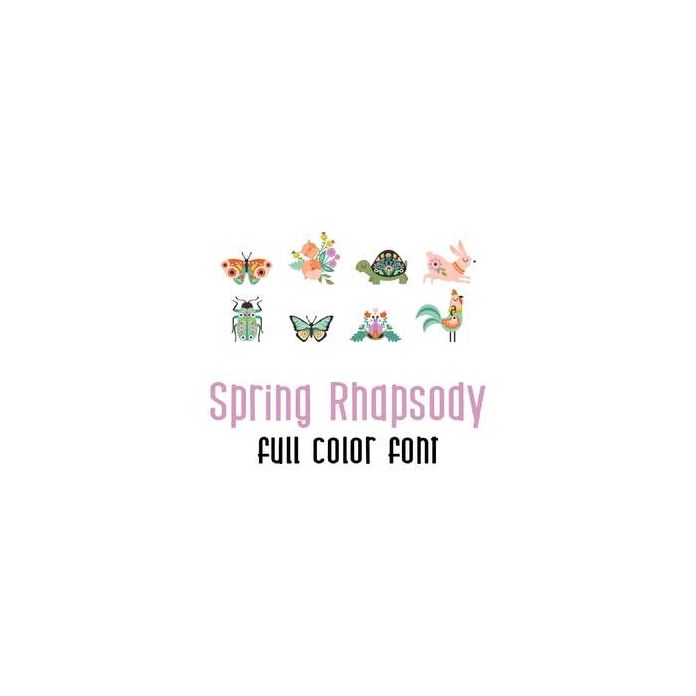
This adorable full color doodlebat font features beautiful Spring Bohemian style imagery. Perfect for cards, crafts, gifts, decor, scrap book pages, planner stickers and more!